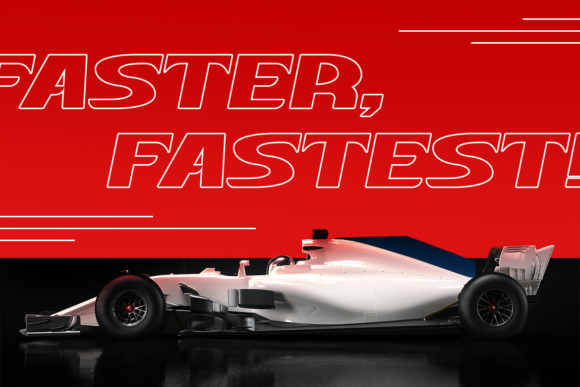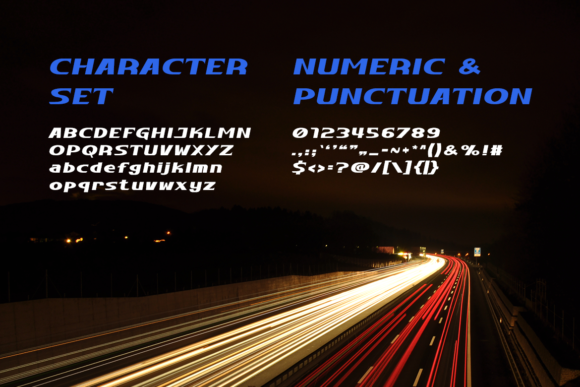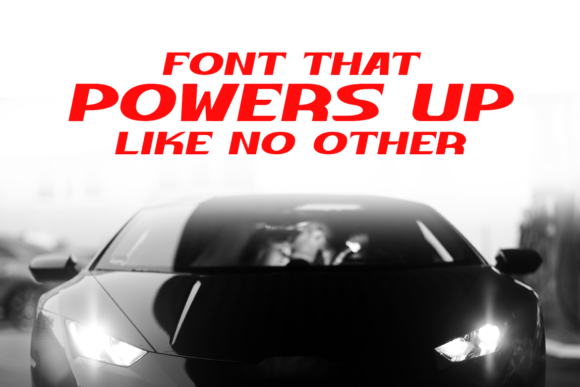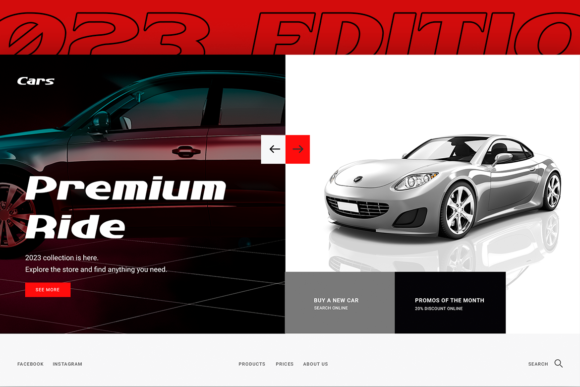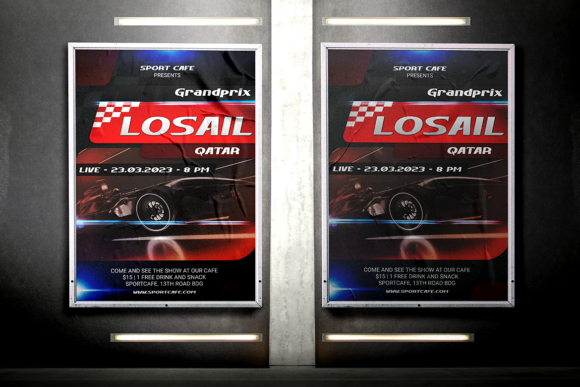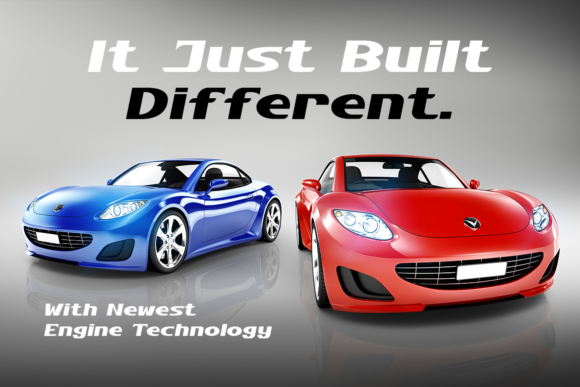
The Ultimate Guide to High Gear Font: Elevate Your Designs with a Futuristic Twist
I’ll never forget the time I was working on a project for a gaming client, and I was struggling to find the perfect font to capture the essence of their brand. The client wanted something modern, edgy, and attention-grabbing, but I was coming up blank. That’s when I stumbled upon High Gear Font, and it completely transformed my design. In this article, I’ll share my experience with High Gear Font, its features, and how to make the most of it in various design platforms.
What is High Gear Font?
High Gear Font is a cool and futuristic display font that suits perfectly online games, teens event posters, school supplies, movie titles, YouTube covers, YouTube thumbnails, social media page covers, and various other design ideas. Its sleek and modern design makes it an excellent choice for designers, crafters, and creative hobbyists looking to add a touch of futurism to their work.
My Honest Review of High Gear Font
Here’s what I love about High Gear Font:
- ✨ Unique and futuristic design: High Gear Font stands out from the crowd with its sleek and modern look.
- ✅ Highly versatile: It can be used for a wide range of design projects, from gaming to movie titles.
- 💥 Attention-grabbing: The font’s bold and edgy design is sure to grab attention and make your design stand out.
However, I did notice a few small quirks:
- 🤔 Limited legibility at small sizes: High Gear Font can be difficult to read at small sizes, so it’s best to use it for headlines or titles.
- ⚠️ Not suitable for body text: The font’s bold and edgy design makes it less suitable for body text, where readability is crucial.
The Backstory of High Gear Font
High Gear Font was designed by a team of creatives who wanted to create a font that captures the essence of speed and futurism. Inspired by the world of gaming and technology, they crafted a font that’s both bold and edgy, yet sleek and modern.
| Font Name | High Gear Font |
| Author | Modestype Studio |
| What is High Gear Font? | High Gear Font is a cool and futuristic display font that’s perfect for online games, teens event posters, school supplies, movie titles, YouTube covers, YouTube thumbnails, social media page covers, and various other design ideas. |